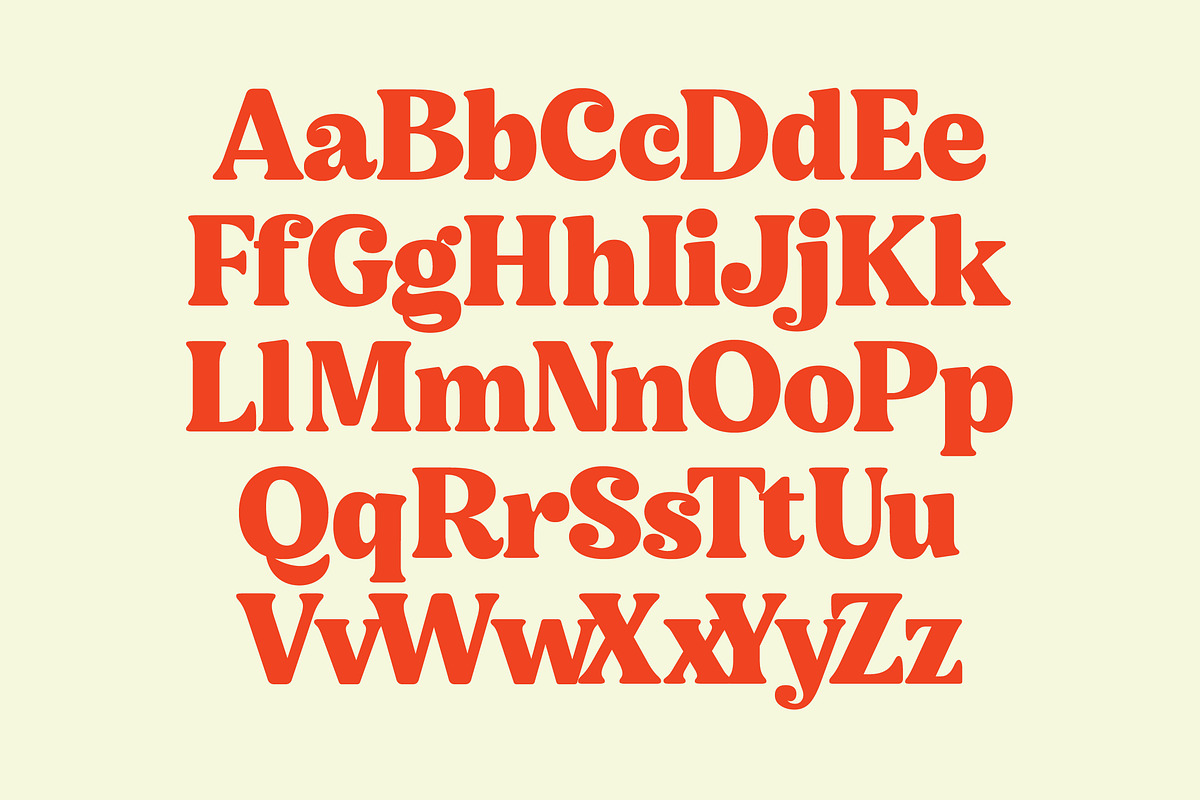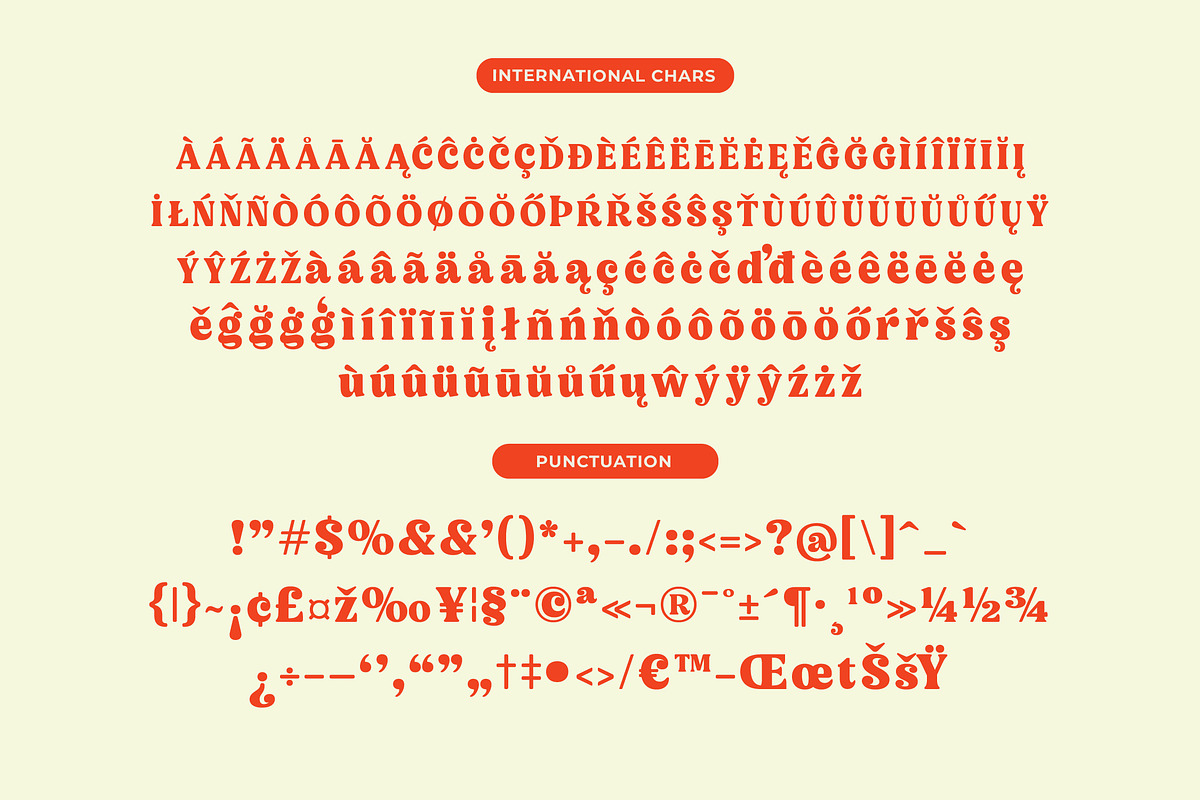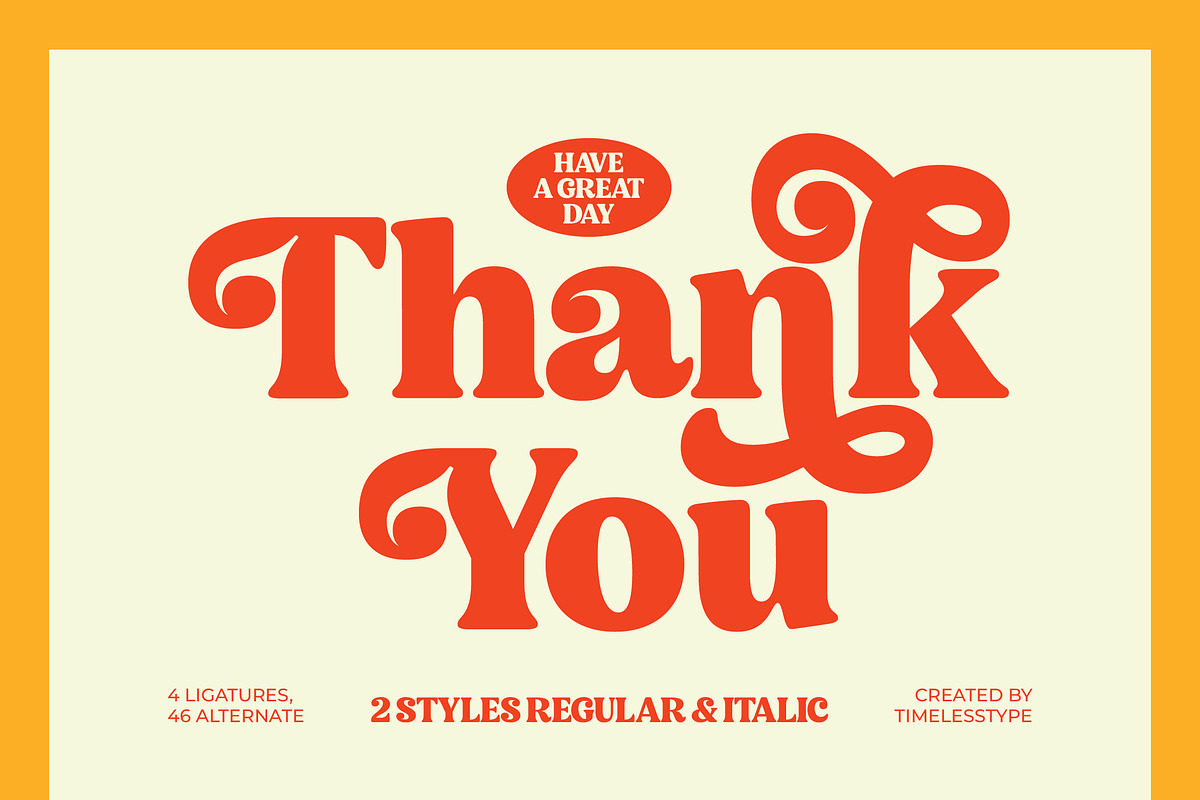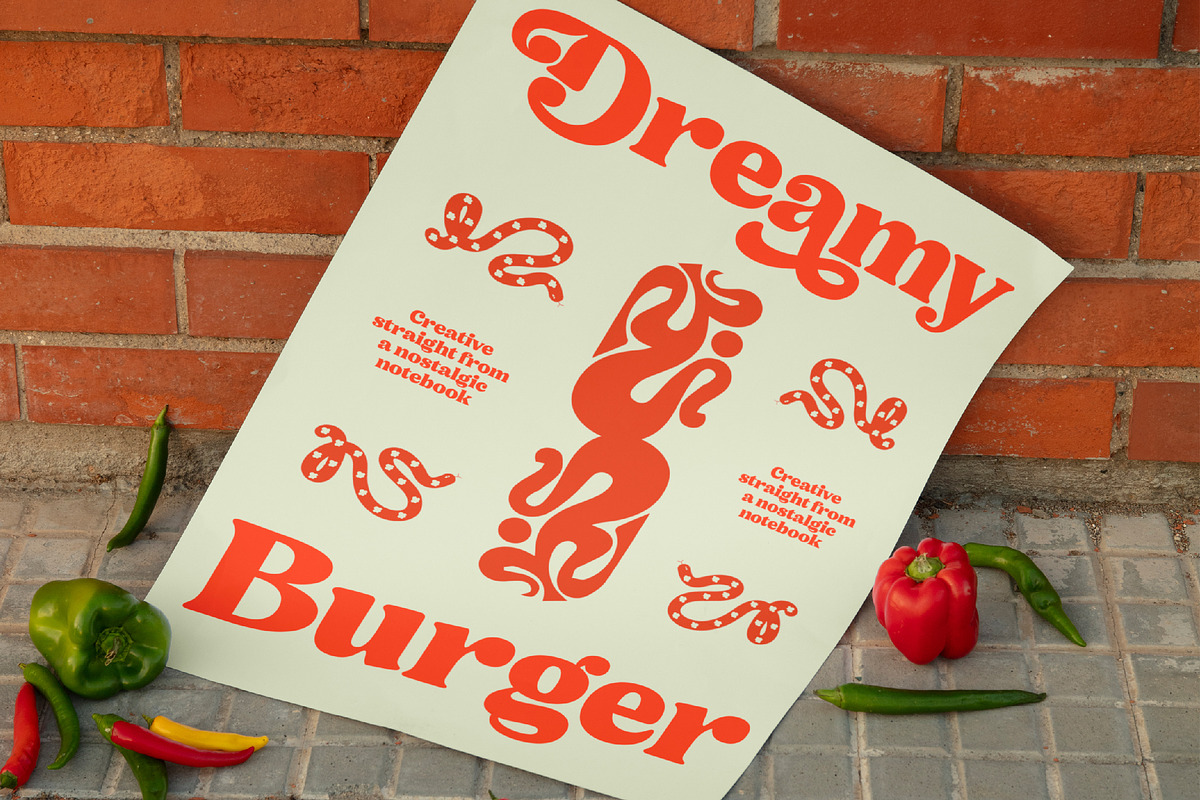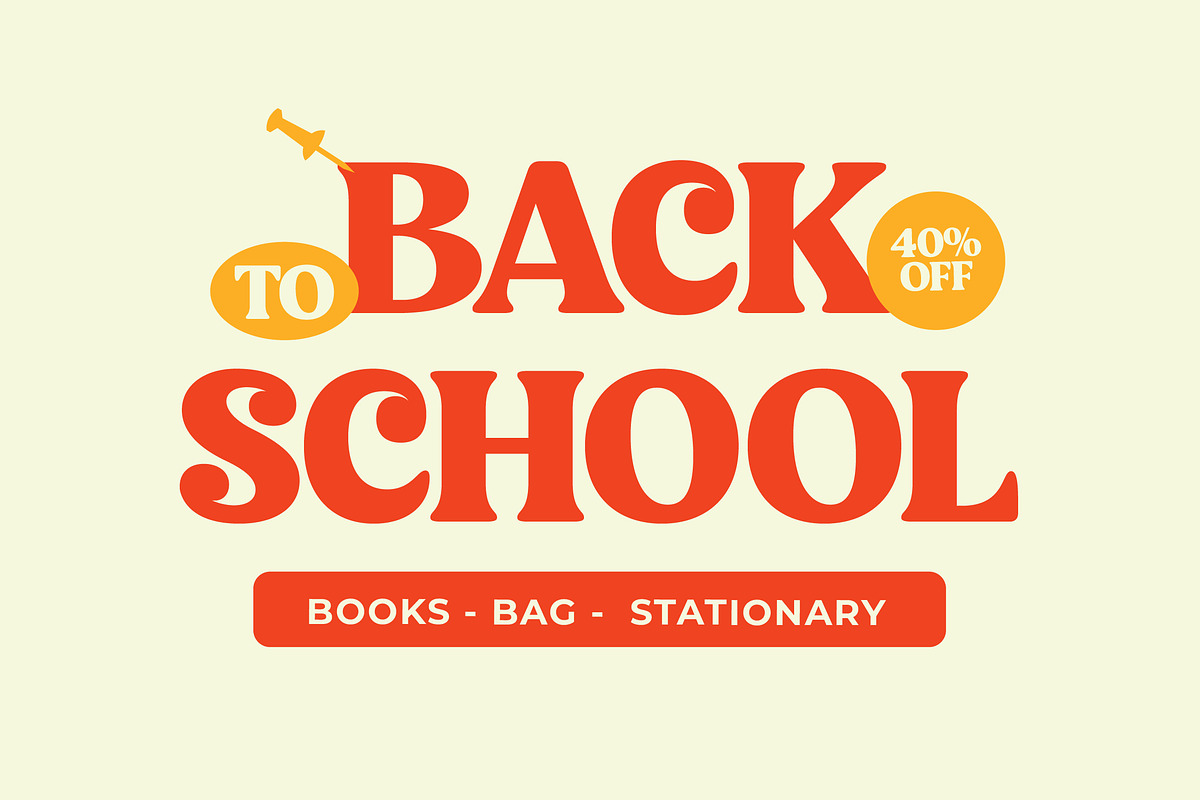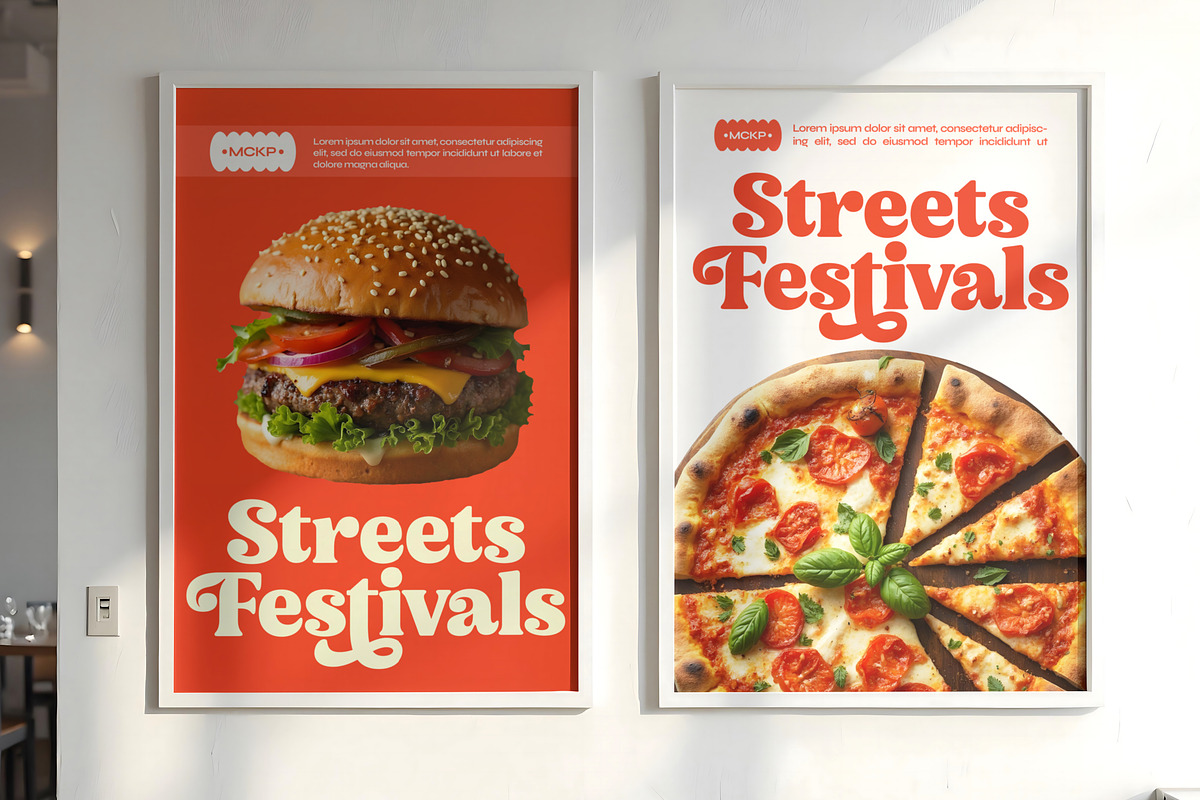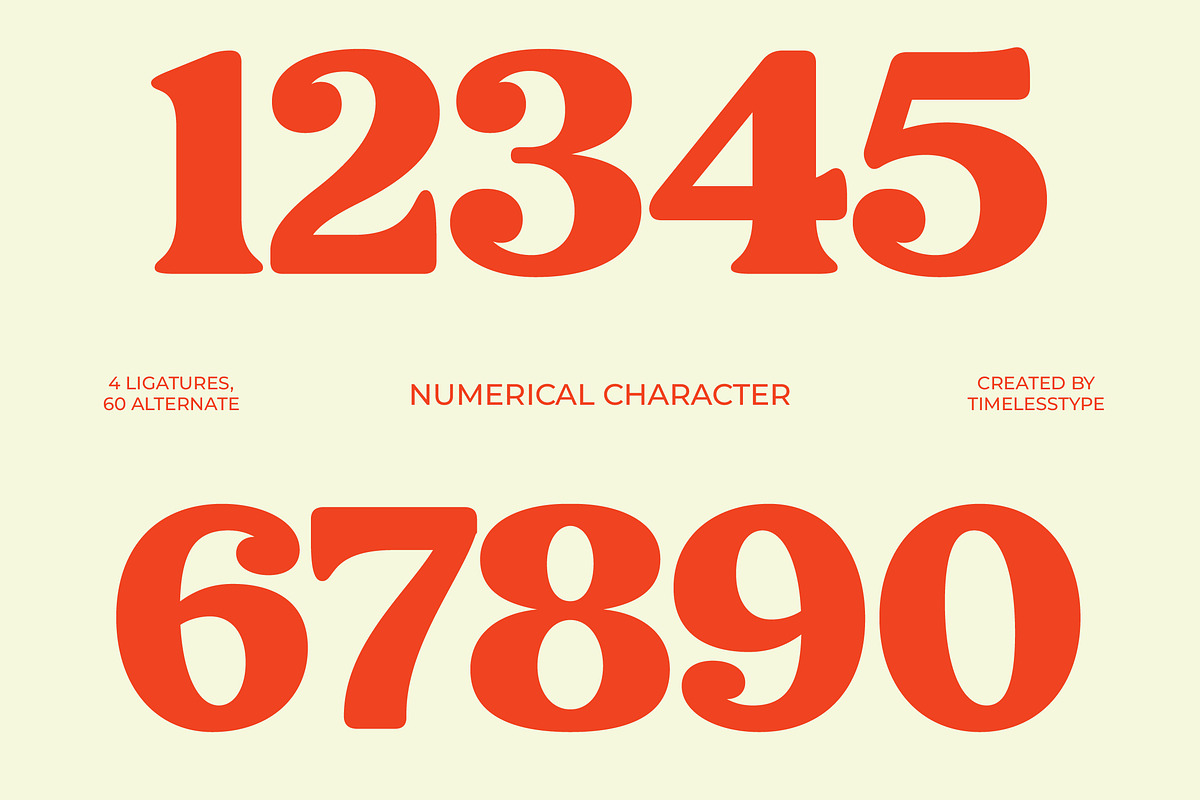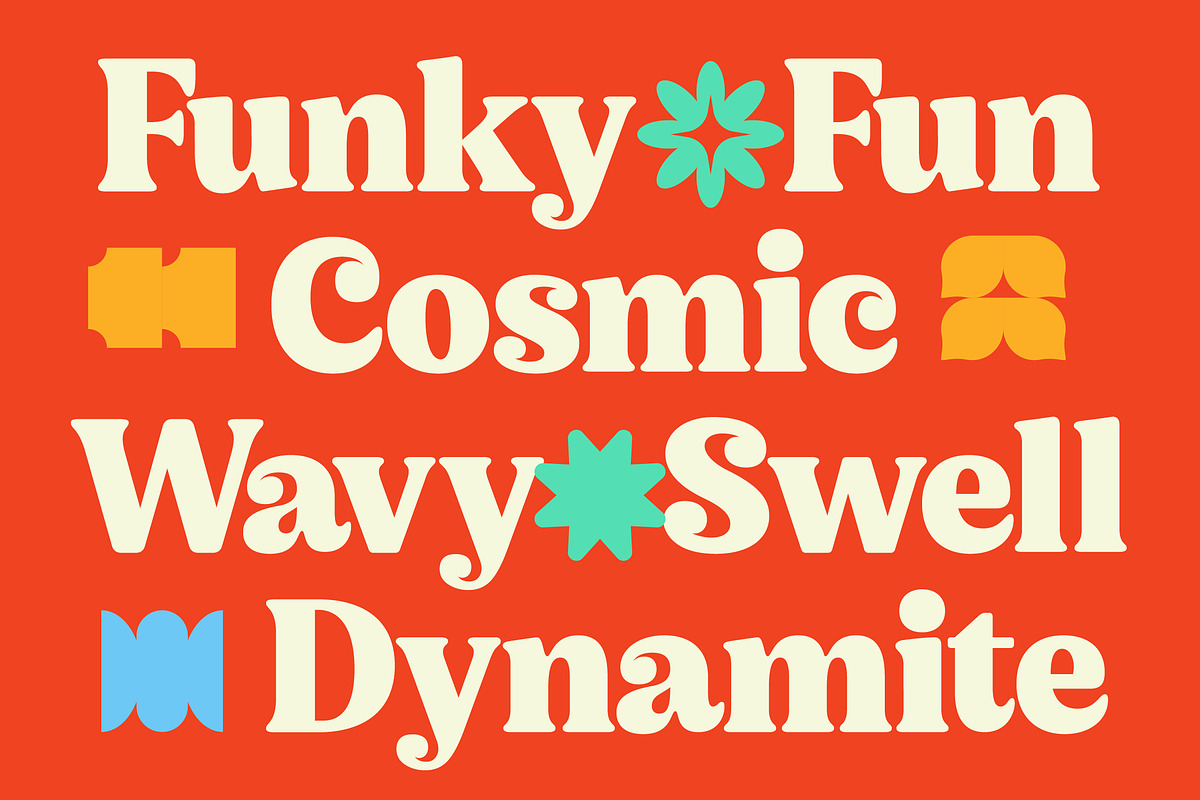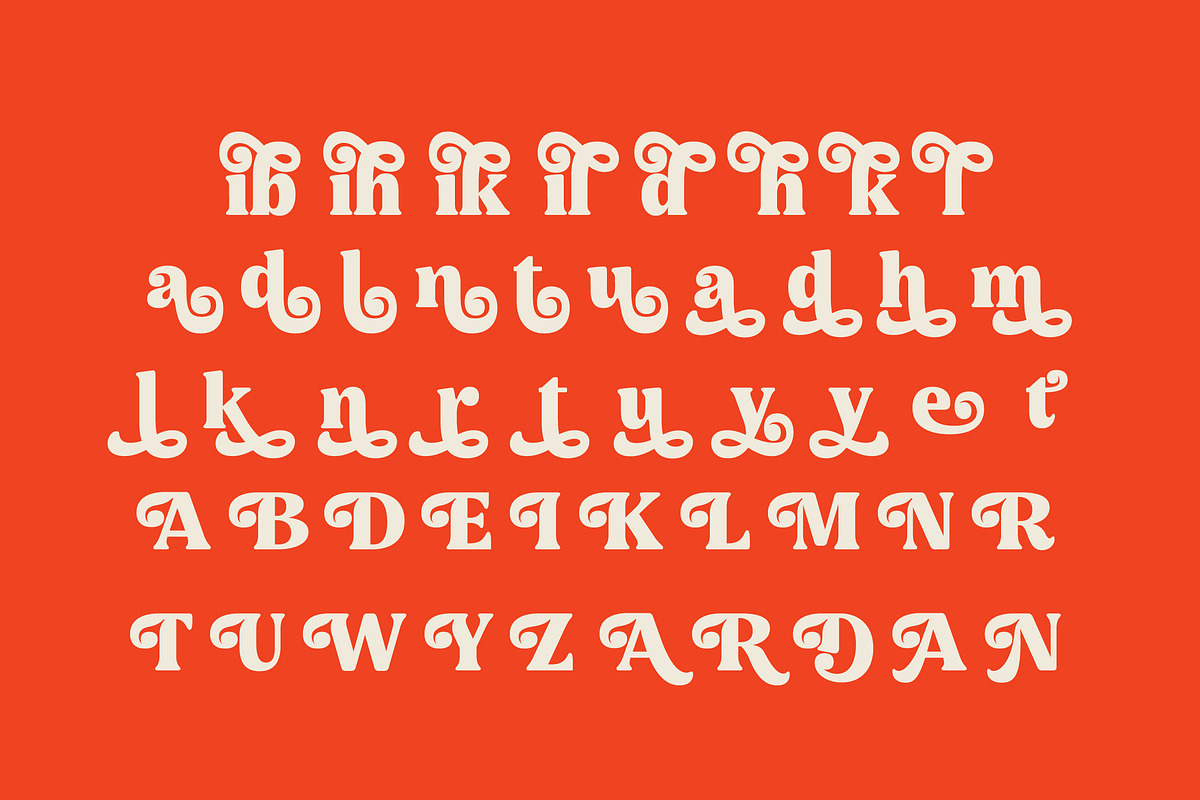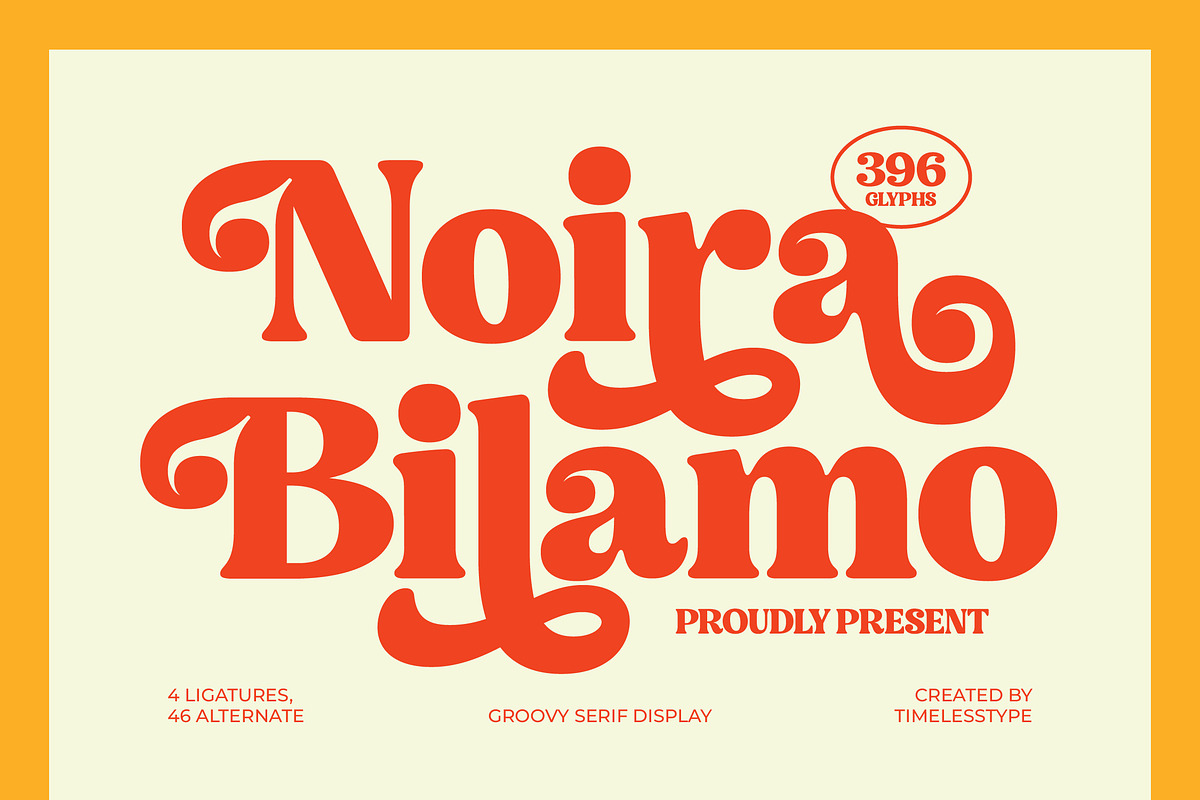
Noira Bilamo Retro Groovy Serif
Step into a world of vibrant nostalgia with Noira Bilamo, a typeface that captures the essence of retro-chic with effortless flair. This font is designed to command attention while maintaining a sophisticated, playful rhythm that elevates any creative layout.
Inspired by the psychedelic curves and bold spirit of the late 1960s and 70s, this typeface draws from the golden era of magazine headlines and record covers. Its fluid motion and heavy-bottomed stems evoke a sense of warmth and timeless cool, perfect for projects that need a touch of vintage soul.
This modern serif display provides a powerful branding impact through its unique balance of weight and movement. As a luxury typography solution, it functions as a high-end editorial font that offers a high-contrast serif experience, ensuring your headlines are as memorable as they are readable.
Perfectly aligned with the current modern serif trend, this typeface meets the demand for character-driven typography in today's digital landscape. It is an essential addition for designers seeking editorial display fonts that bridge the gap between classic aesthetics and contemporary design sensibilities.
From high-end logo design to cohesive branding identities, the versatility of this font makes it ideal for packaging and fashion marketing. It also adds a distinctive, romantic touch to wedding invitations and high-concept editorial spreads where personality is paramount.
Packaged with a comprehensive suite of ligatures and alternates, the font allows for endless customization through expressive swashes. With full multilingual support and a wide array of international characters, it is ready for global design projects across all platforms.
- Ligature 4 Alternate 46